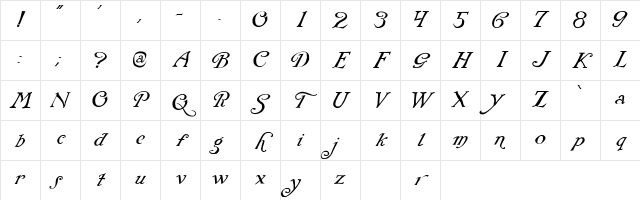
RackhamItalic Regular Free Font
RackhamItalic Regular
Design Context for RackhamItalic
RackhamItalic is a composed and adaptable typeface that performs quietly and consistently across a wide range of design contexts. The slanted form adds forward momentum and visual energy.
Pro Tip: Use RackhamItalic for emphasis, pull quotes, and subheadings where its slanted energy can add rhythm to the layout.